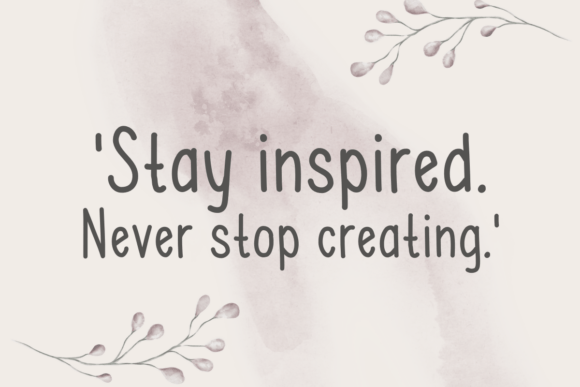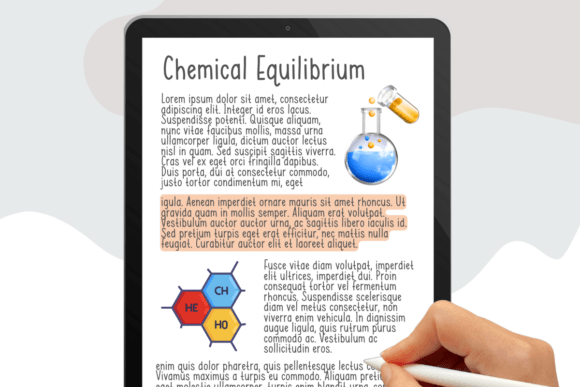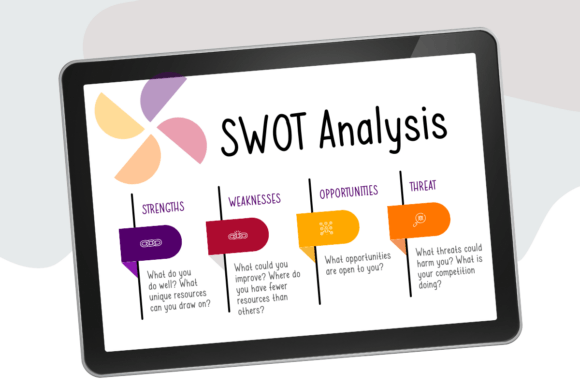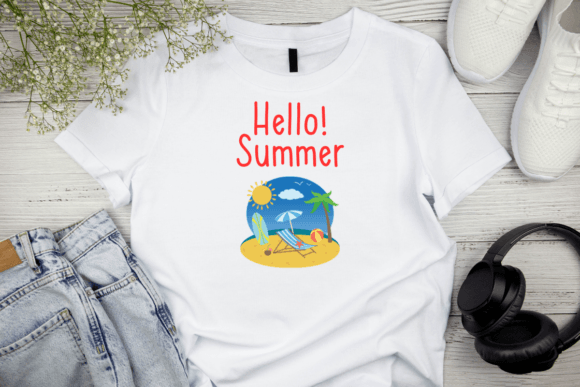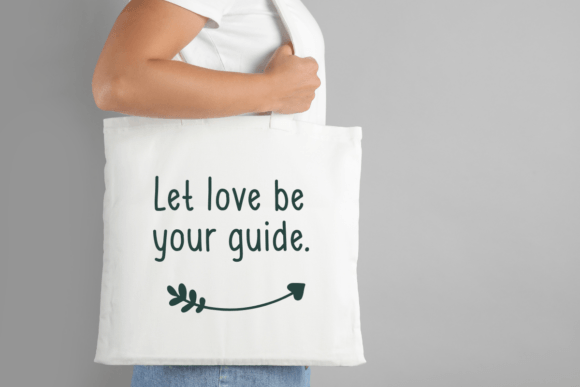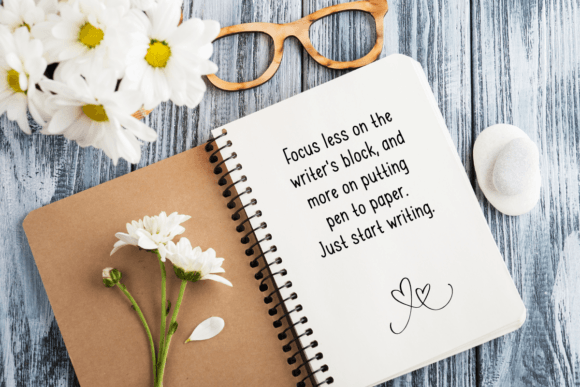
Good Morning Font: The Perfect Handwritten Script Font for Digital Note-Taking and Creative Projects
Are you tired of using the same old fonts for your digital note-taking and creative projects? Look no further than Good Morning Font, a cute and neat handwritten script font that’s perfect for adding a personal touch to your designs. In this article, we’ll explore the features and benefits of Good Morning Font, and show you how it can elevate your projects to the next level.
What is Good Morning Font?
Good Morning Font is a beautifully crafted handwritten script font that’s designed to be both versatile and easy to read. Its unique charm and character make it perfect for a wide range of projects, from digital note-taking to creative designs. Whether you’re a designer, crafter, or simply someone who loves to stay organized, Good Morning Font is the perfect addition to your font collection.
Features of Good Morning Font
So, what makes Good Morning Font so special? Here are just a few of its key features:
- Cute and Neat Handwriting Style: Good Morning Font features a beautiful, handwritten script style that’s both cute and neat. Its unique character makes it perfect for adding a personal touch to your designs.
- Versatile: Good Morning Font is incredibly versatile, making it perfect for a wide range of projects, from digital note-taking to creative designs.
- Easily Readable: Despite its handwritten style, Good Morning Font is incredibly easy to read, making it perfect for digital note-taking and other applications where legibility is key.
Uses for Good Morning Font
So, what can you use Good Morning Font for? The possibilities are endless! Here are just a few ideas to get you started:
- Digital Note-Taking: Good Morning Font is perfect for digital note-taking, adding a personal touch to your notes and making them more enjoyable to read.
- Procreate Designs: If you’re a Procreate user, Good Morning Font is a great addition to your font collection. Use it to create beautiful, hand-drawn designs and illustrations.
- Blog Posts: Add a personal touch to your blog posts with Good Morning Font. Its unique character and easy readability make it perfect for blog posts and articles.
- Logos and Branding: Good Morning Font is also perfect for logos and branding. Use it to create a unique and memorable brand identity.
- Digital Planners: If you’re a fan of digital planners, Good Morning Font is a great choice. Use it to create beautiful, functional planners that are both stylish and easy to use.
- Invitations and Greeting Cards: Good Morning Font is perfect for invitations and greeting cards. Add a personal touch to your cards and invitations with this beautiful handwritten script font.
- Photo Albums: Use Good Morning Font to create beautiful, hand-drawn photo albums that are both stylish and easy to read.
Why Choose Good Morning Font?
So, why choose Good Morning Font over other fonts? Here are just a few reasons:
- Unique Character: Good Morning Font has a unique character that’s both cute and neat. Its handwritten style adds a personal touch to your designs.
- Versatility: Good Morning Font is incredibly versatile, making it perfect for a wide range of projects.
- Easily Readable: Despite its handwritten style, Good Morning Font is incredibly easy to read.
- Perfect for Designers and Crafters: Good Morning Font is perfect for designers and crafters who want to add a personal touch to their designs.
| Font Name | Good Morning Font |
| Author | DrextorLetters |
In conclusion, Good Morning Font is a beautiful handwritten script font that’s perfect for digital note-taking and creative projects. Its unique character, versatility, and easy readability make it a great addition to any font collection. Whether you’re a designer, crafter, or simply someone who loves to stay organized, Good Morning Font is the perfect choice. So why wait? Download Good Morning Font today and start creating beautiful, hand-drawn designs that are both stylish and easy to read.